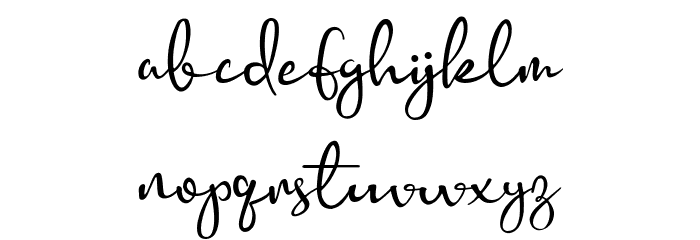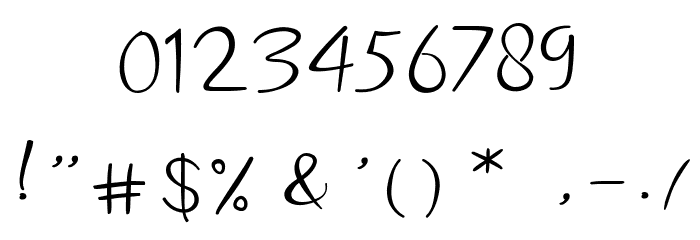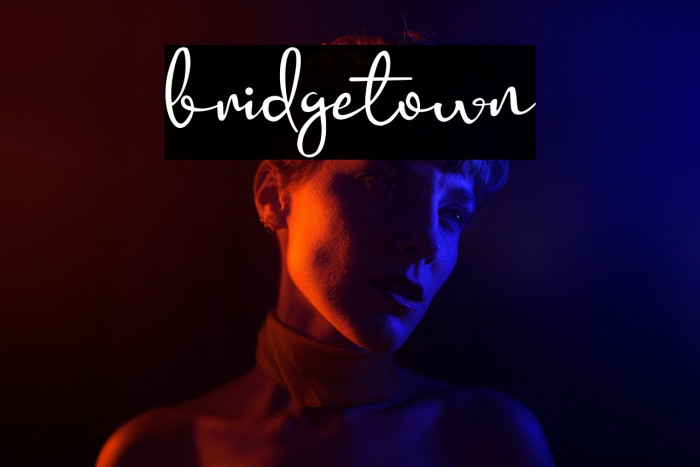
bridgetown Font
This font features an elegant and flowing script style, characterized by its smooth, cursive strokes and graceful curves. The uppercase letters exhibit a sophisticated flair with extended loops and swashes, while the lowercase letters maintain a consistent and harmonious flow. The numerals are designed with a similar cursive style, ensuring a cohesive look across all characters. Special characters are thoughtfully integrated, maintaining the font's overall aesthetic. This font exudes a sense of elegance and refinement, making it suitable for a variety of creative applications.
An elegant and flowing script font with graceful curves and cursive strokes.
- Proposed Projects: Ideal for wedding invitations, elegant branding, greeting cards, and decorative signage.
- Overall Style: Elegant
- Use Case: Logos, Invitations, Decorative Text